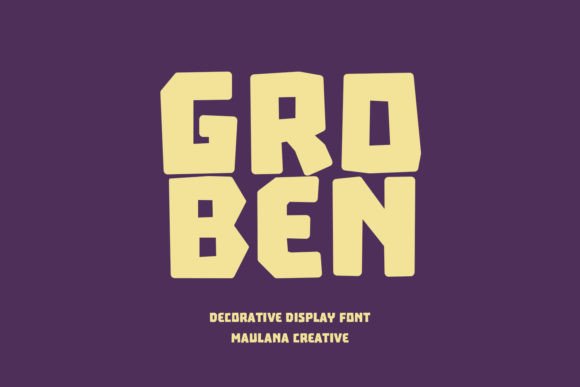
**Groben Font: A Striking Display Font for a Bold Visual Impact**
In a world saturated with information, it's the bold and distinctive that truly stand out and capture attention. Introducing Groben Font, a display font that embodies audacity and confidence, ready to transform your designs into captivating masterpieces.
Crafted by the skilled hands of Maulana Creative, Groben Font is a symphony of clean lines and geometric shapes, meticulously designed to deliver an unforgettable visual impact. Its sharp edges and precise letterforms exude a sense of modernity and sophistication, making it the perfect choice for creating headlines, titles, logos, and branding that demand attention.
**Unleash Your Creative Potential with Groben Font**
Groben Font is not just a font; it's an artistic tool that empowers you to express your creativity and leave a lasting impression on your audience. Its versatility extends across a wide range of design projects, from sleek and contemporary websites to eye-catching social media graphics.
Imagine your designs adorned with Groben Font's bold and confident strokes, commanding attention like a symphony conductor leading an orchestra. Whether you're a graphic designer, web developer, or marketing professional, Groben Font is your ultimate weapon to create designs that resonate with your audience and leave a lasting impression.
**Step into a World of Visual Distinction**
With Groben Font, you're not just downloading a font; you're embarking on a journey of creative exploration and visual distinction. Its unique character and bold presence will transform your designs into works of art that captivate and inspire.
So, why settle for ordinary when you can embrace the extraordinary? Unleash the power of Groben Font and watch your designs soar to new heights of visual brilliance. Embrace the opportunity to stand out from the crowd and make a statement with every design you create.